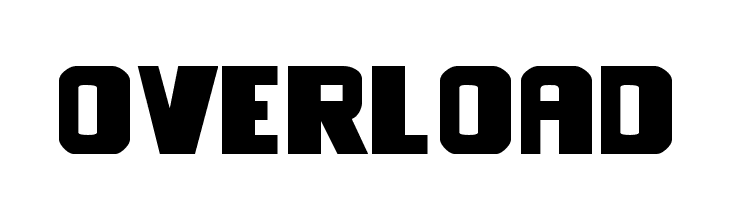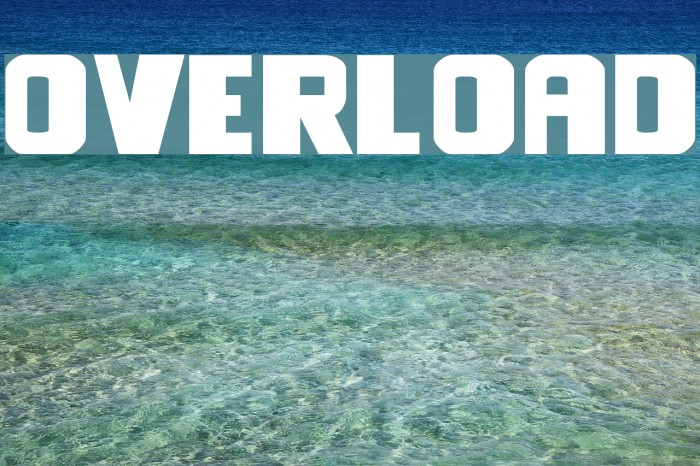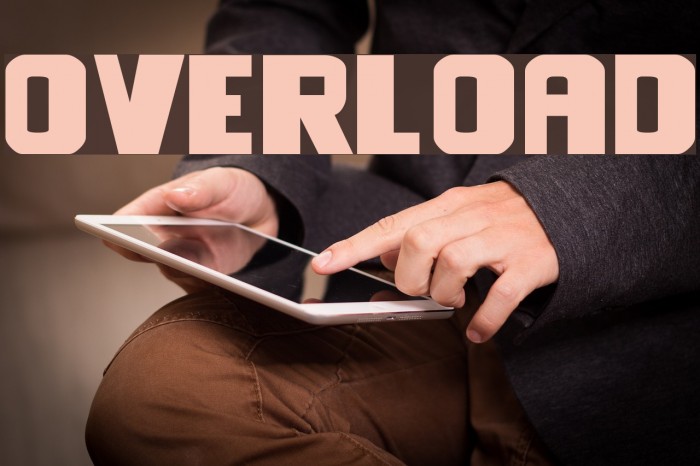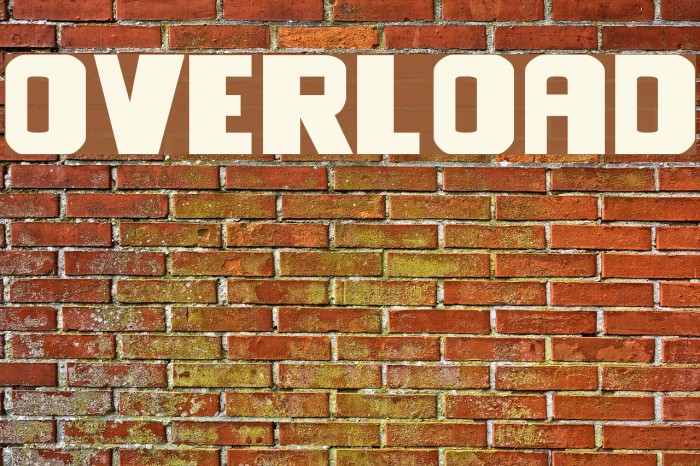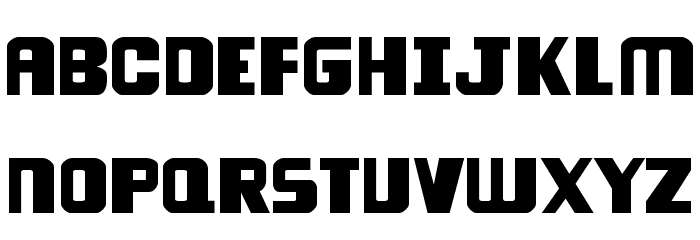
overload Font
overload Description
This font features a bold and robust design, characterized by its thick, blocky letters with a modern and industrial feel. The uppercase letters are uniform in height, with straight lines and sharp angles, giving it a strong and commanding presence. The absence of curves and the consistent width of the strokes contribute to its solid and sturdy appearance. This font is highly legible and makes a powerful statement, ideal for attention-grabbing headlines and impactful designs. The geometric structure and lack of ornamentation emphasize its utilitarian and straightforward style.
A bold, blocky font with a modern, industrial aesthetic.
- Proposed Projects: Ideal for posters, headlines, branding, and signage where a strong visual impact is needed.